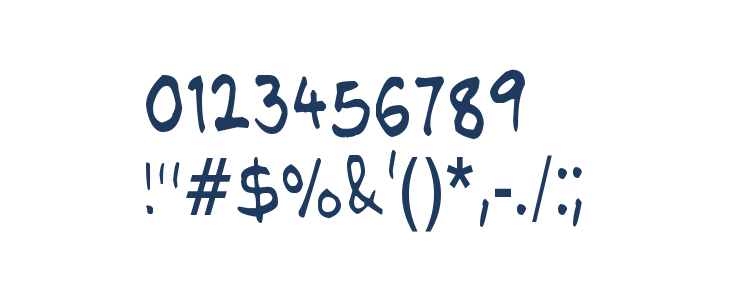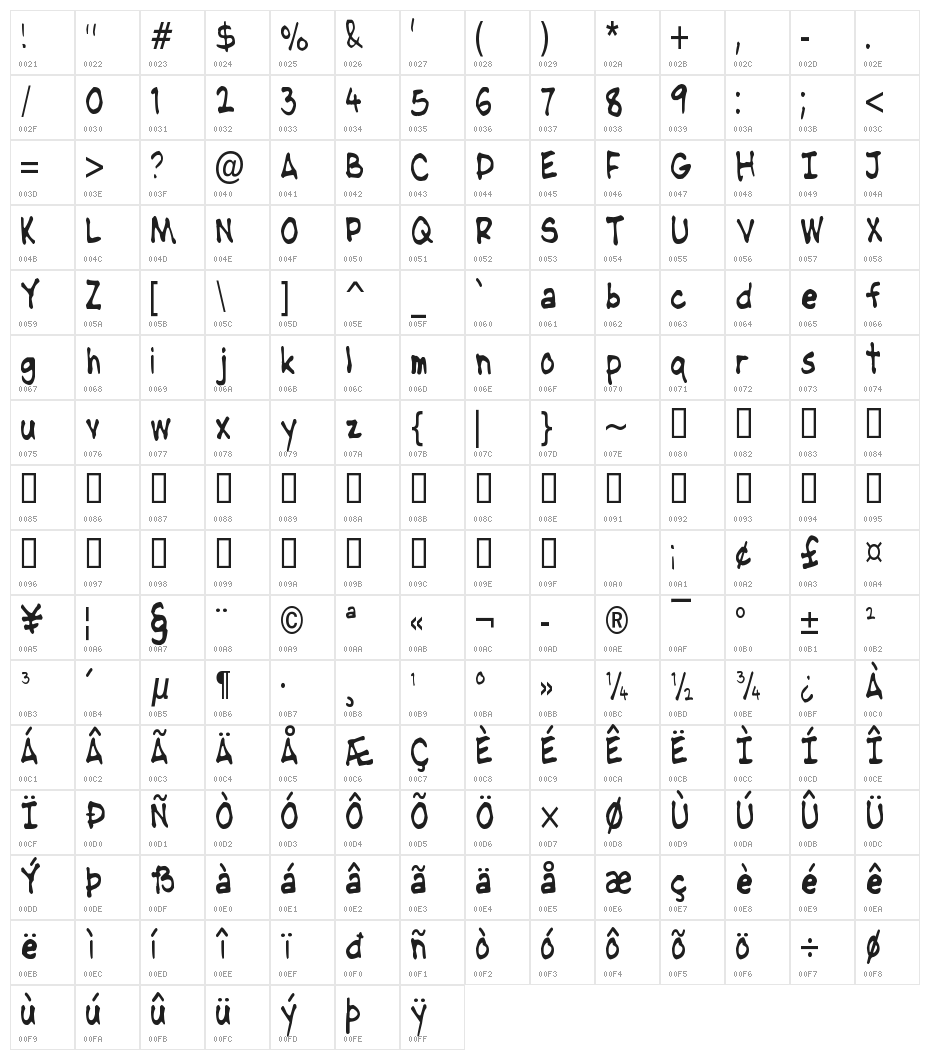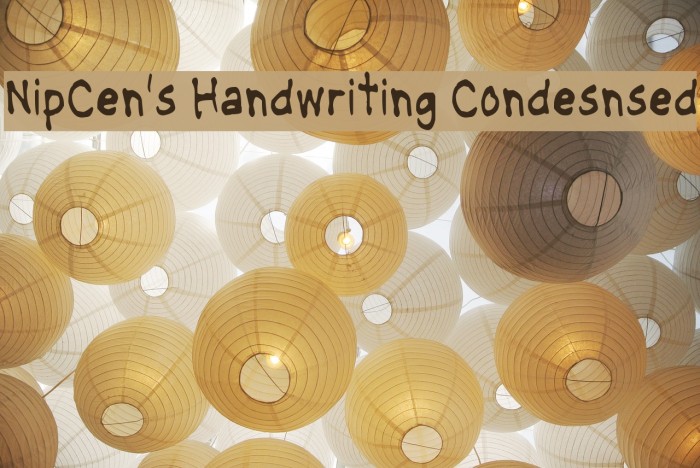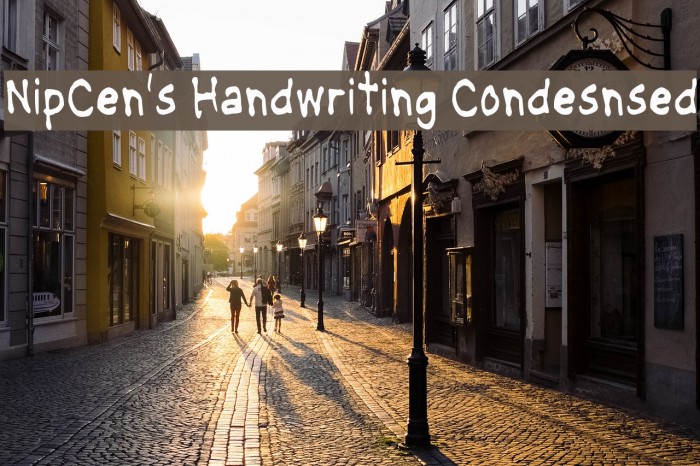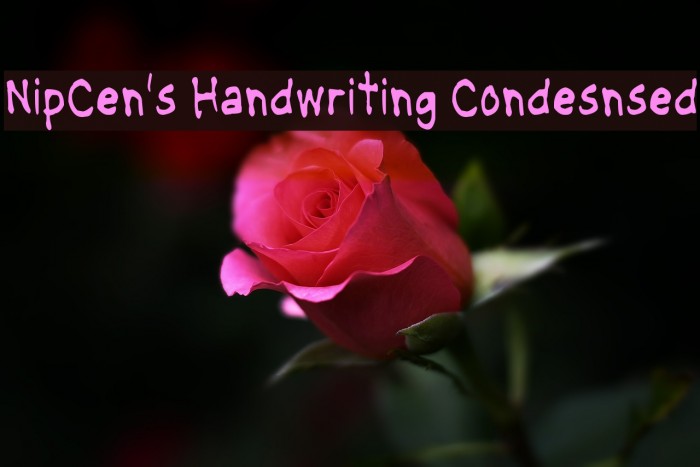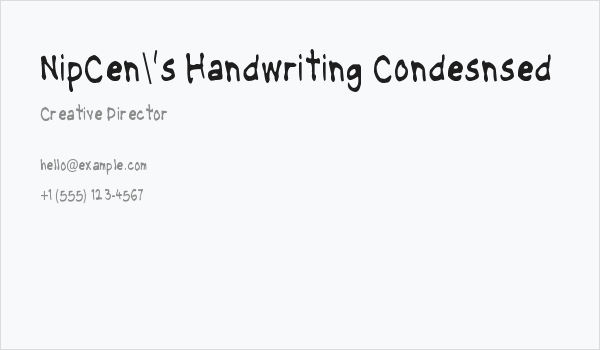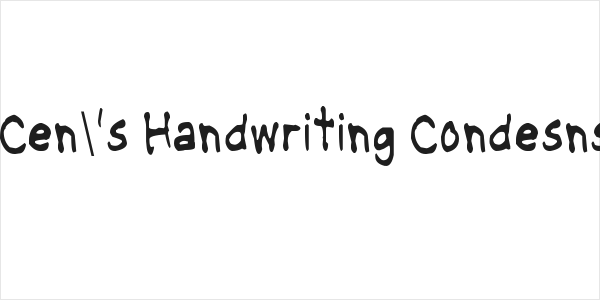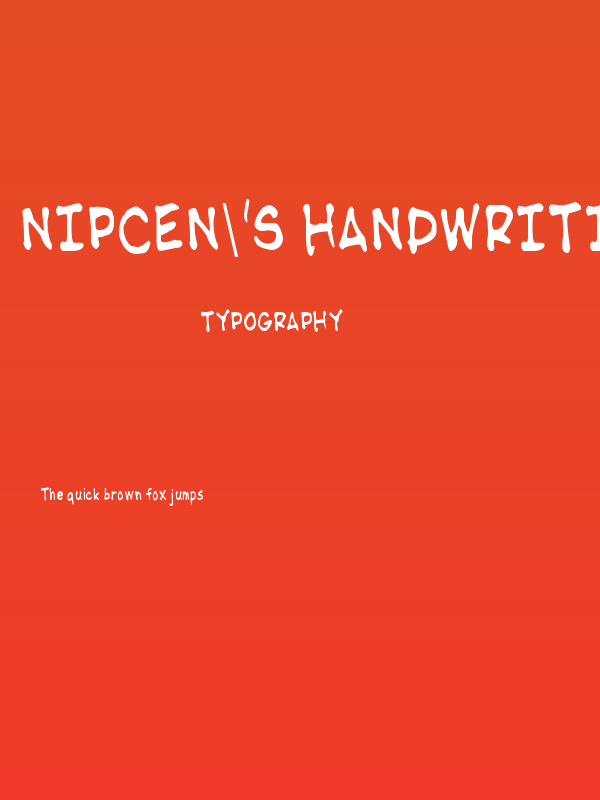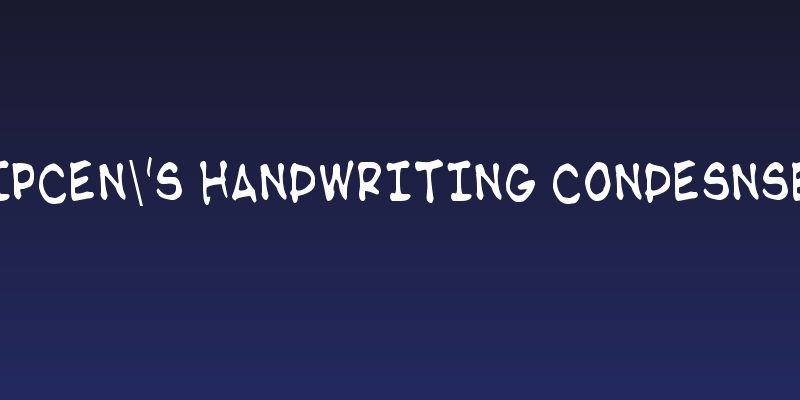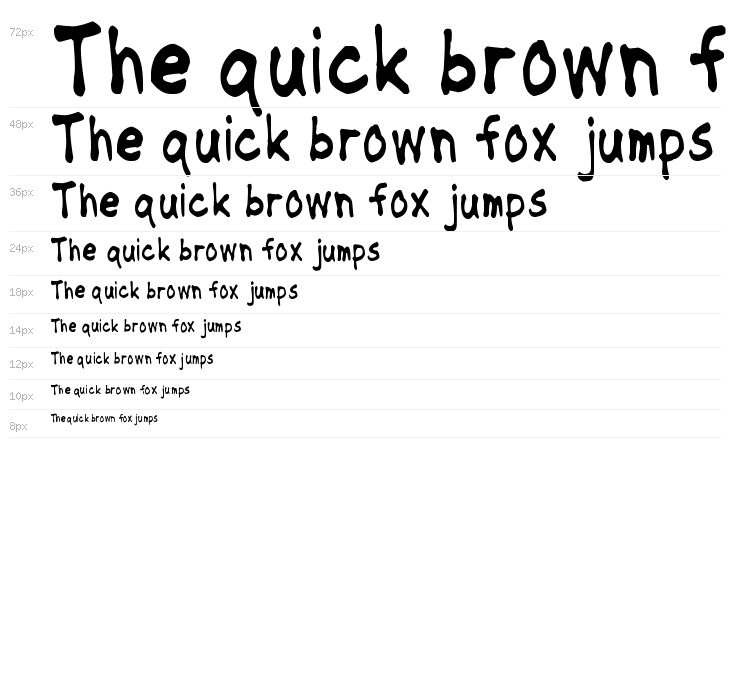
NipCen's Handwriting Condesnsed Font
NipCen's Handwriting Condesnsed Description
This font exudes a playful and informal vibe, characterized by its handwritten style. The letters are uneven and slightly irregular, giving it a casual and personal touch. The strokes are bold and rounded, with a condensed appearance that makes it suitable for creating a compact and friendly look. The uppercase and lowercase letters maintain a consistent style, with a slight tilt that adds to the handwritten feel. The numbers and special characters follow the same design principles, ensuring a cohesive appearance across all elements.
| Proposed Projects | Ideal for children's books, greeting cards, casual invitations, and playful branding projects. |